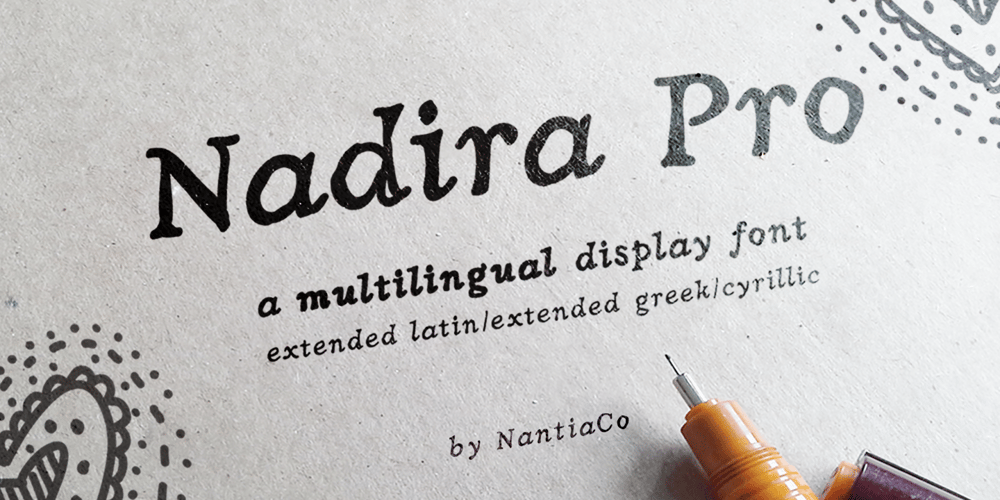
Nadira Pro Font Family was designed by Konstantina Louka and published by Nantia.co. Nadira Pro contains 2 styles and family package options. Nadira Pro Font is a handcrafted multilingual font.Nadira Pro Font is a Latin-Greek hand drawn serif font, that looks formal enough on wedding invitations, but not too sketchy. It is a unique font that has a great variety of applications with multilingual support. Food packaging, restaurant menus, branding and wedding invitations are some examples of the numeral applications. The wide range of language support of the font makes it ideal for international food packaging. Especially if you are looking for a logo font, because of the fresh style of the typeface, it is the perfect design tool for natural organic product packaging and branding. The style of the font is shabby chic but still, is maintaining it’s legibility and balance so you can use it on small text sizes too.Additionally, in the past few years, Nadira Pro Font has gained popularity among wedding invitation designers. Seems like the shabby chic vibes of this wedding font can pair perfectly with handcrafted / kraft / recycled papers and the results are amazing! Also, Nadira Pro Font supports extended Greek diacritics or Polytonic Greek. Therefore, this feature is perfect for writing Byzantine, Katharevousa and Greek-Orthodox texts, with a modern twist.